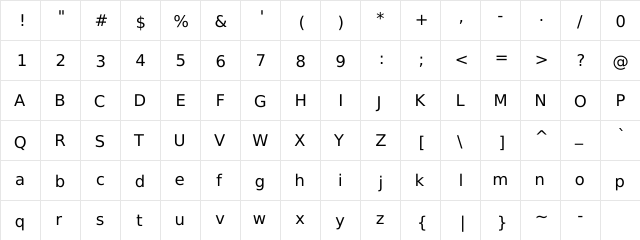
Alvi Nastaleeq Regular
| Foundry | Alvi Technologies Pvt. Ltd. |
| Designer | Amjad Hussain Alvi |
Design Context for Alvi Nastaleeq Typeface
Alvi Nastaleeq is a composed and adaptable typeface that performs quietly and consistently across a wide range of design contexts.
Pro Tip: Use Alvi Nastaleeq in both headline and body roles to test its range before committing to a single application.